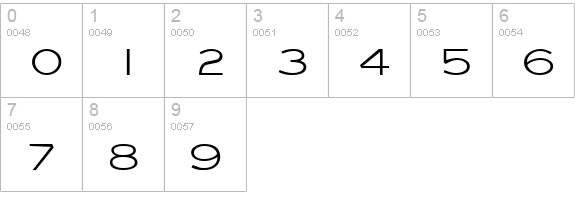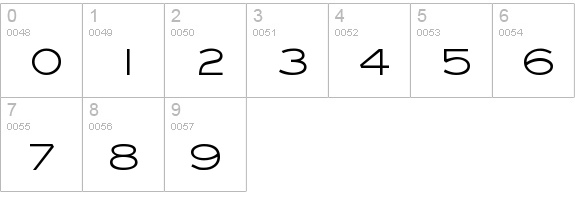
Eyechart Regular Font Details
Eyechart Regular is the standard, neutral variant in the Eyechart typeface family \xE2\x80\x94 well suited to general body text, paragraphs, and standard typographic work.
Eyechart Regular font is a modern and stylish typeface that is perfect for various design projects. With its sleek lines and clean appearance, this font is sure to make your text stand out. Whether you are creating a poster, logo, or website, Eyechart Regular font will give your project a professional and polished look. The best part? Eyechart Regular font is completely free to download at FontsMarket.com. You can easily access this font and use it in any of your projects without having to worry about any licensing fees. So why wait? Add Eyechart Regular font to your font collection today and elevate your designs to the next level.